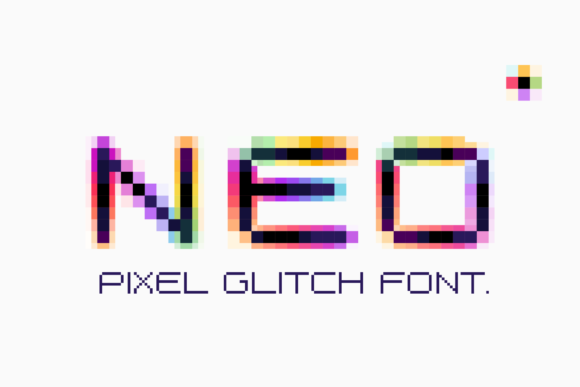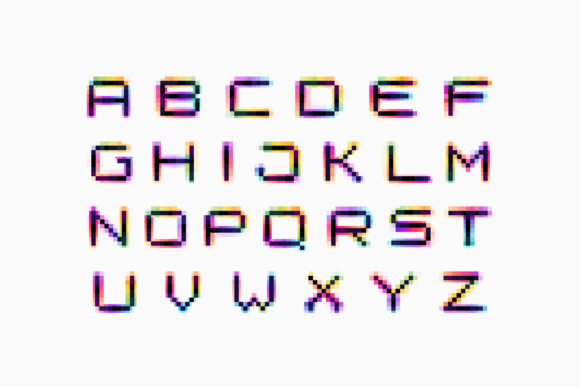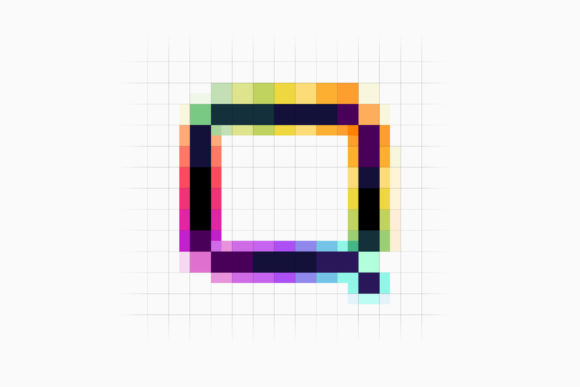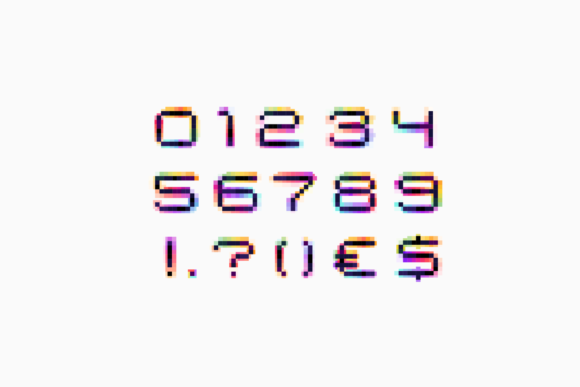
Neo Pixel Font
About the Neo Pixel Font
Introducing the Neo Pixel Font, a beautifully crafted typeface designed to elevate your creative projects. Do you need a glitch distorted pixel font with a color shift effect? This vector font is perfect to use in your vibrant nightlife labels, retro video game screens, colorful electronic identity, etc.
Neo Pixel Font’s bold, energetic style is ideal for headlines, short text blocks on posters, and branding elements where a strong, retro-futuristic aesthetic is desired. It excels in creating vibrant logos and packaging for products targeting a younger demographic interested in gaming, technology, or nightlife culture. However, its highly stylized nature makes it unsuitable for body copy or UI elements requiring high readability.
Pairing Neo Pixel with a clean sans-serif like Futura or a geometric sans-serif like Roboto creates a visually interesting contrast, balancing the font’s playful energy with a sense of order. For a more retro feel, consider pairing it with a classic serif like Garamond or a slightly more playful script font.
Avoid using Neo Pixel for extensive text or applications prioritizing legibility. Its distinctive pixelated forms and color shifts are best utilized as a striking visual accent.